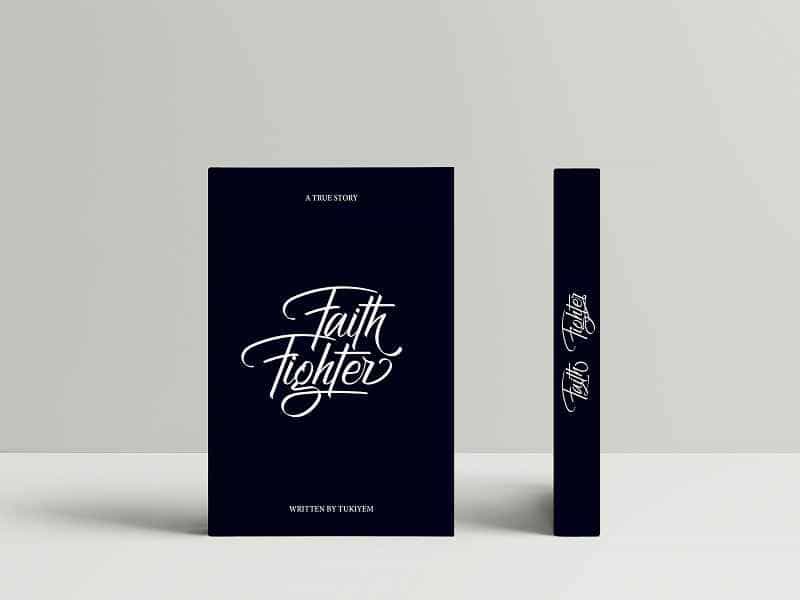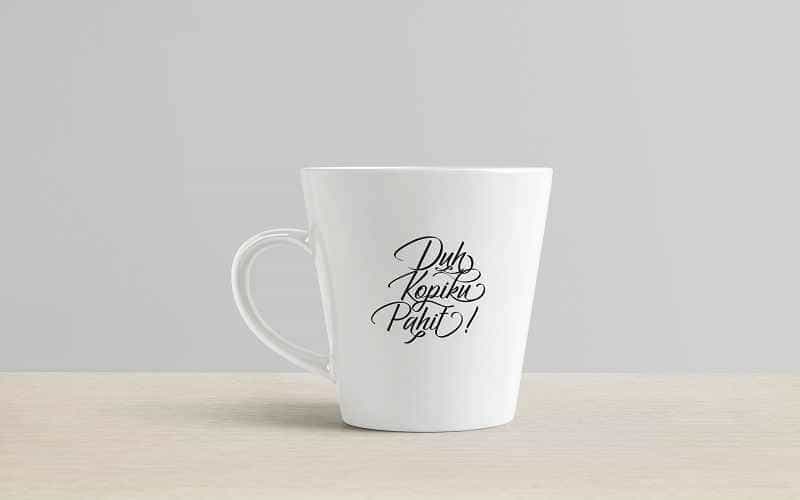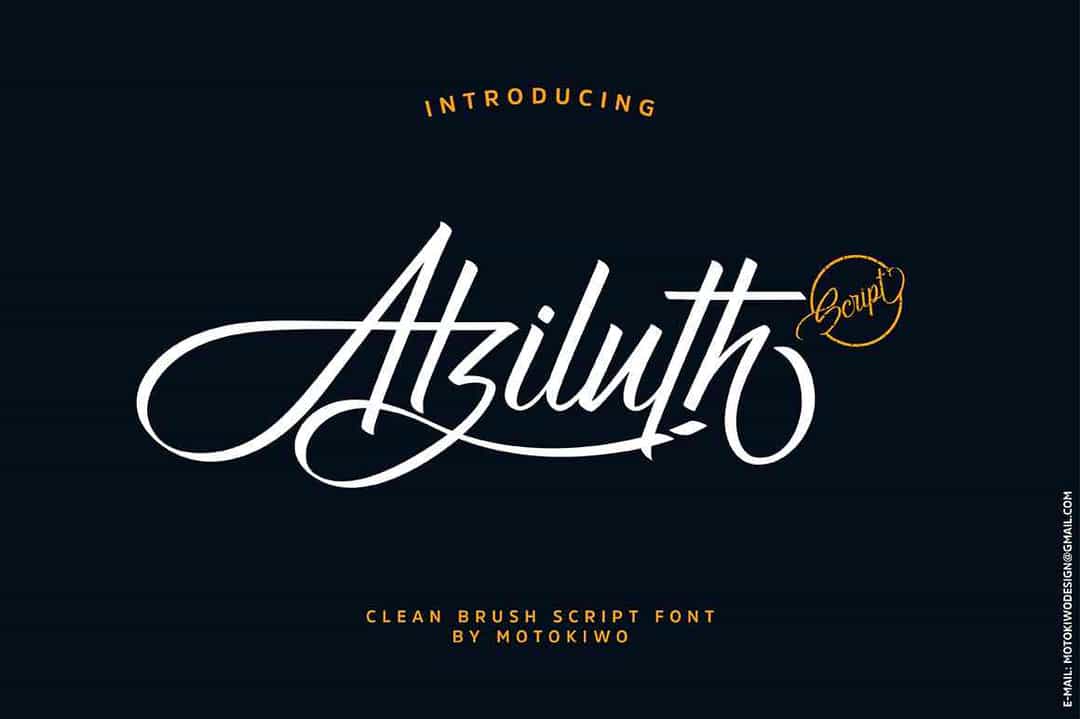
Atziluth is another free script font for Brush that includes no brush strokes and is designed and published by Anton Cahyono. Atziluth is inspired with the calligraphic elegance and style and is applied together with the digital brush technology as the main display font that is perfect for branding or logotype type of usage.